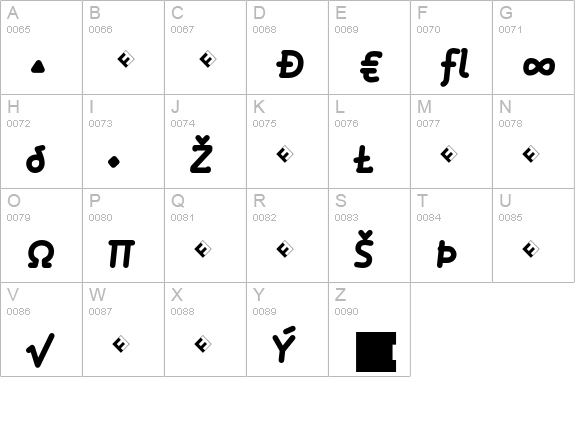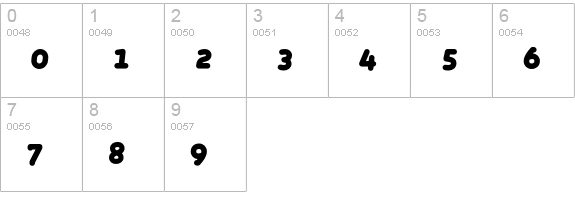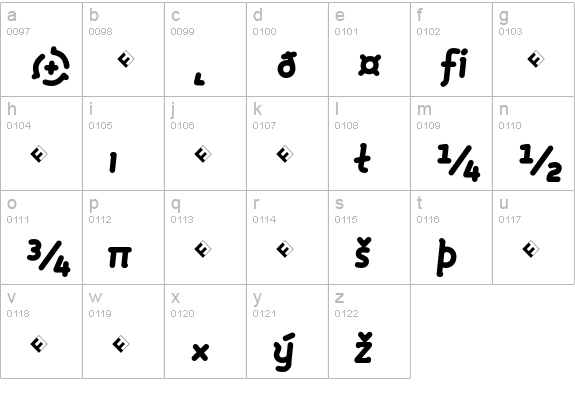
Roice-BlackItalicExpert font is a stylish and sophisticated typeface that exudes elegance and charm. With its sleek design and modern aesthetic, this font is perfect for adding a touch of sophistication to any project. The italicized characters give it a unique flair, making it stand out from other fonts. Best of all, Roice-BlackItalicExpert font is available for free download at FontsMarket.com. Whether you're working on a professional project or simply want to add a touch of class to your designs, this font is sure to impress. Download it today and elevate your typography game to the next level.